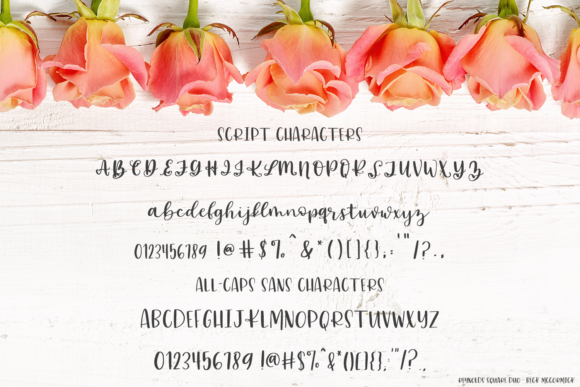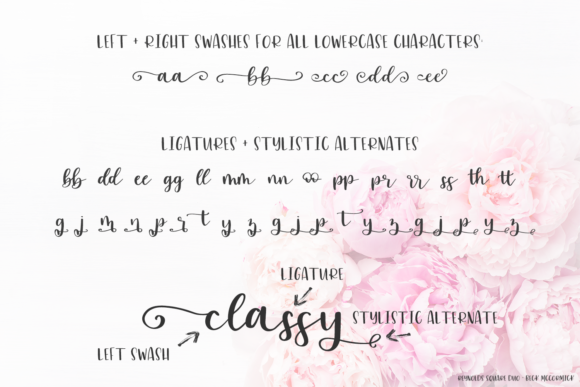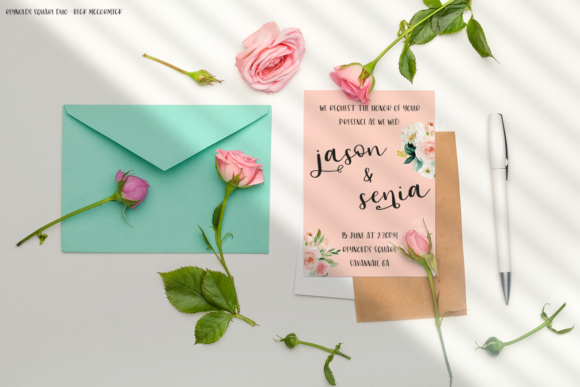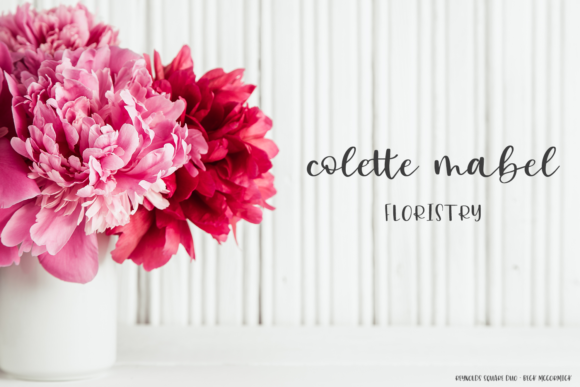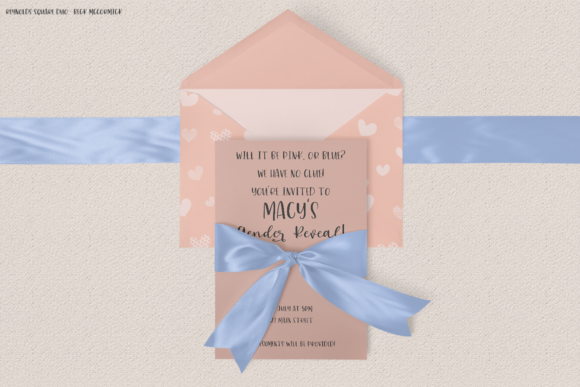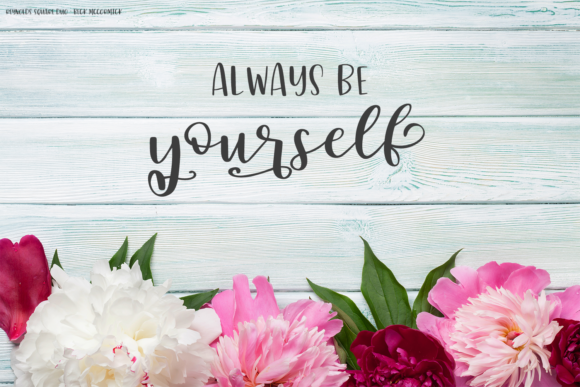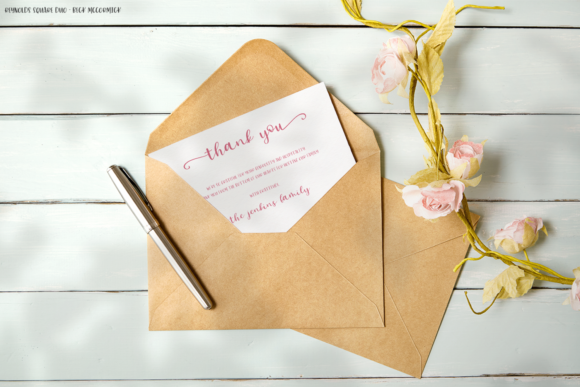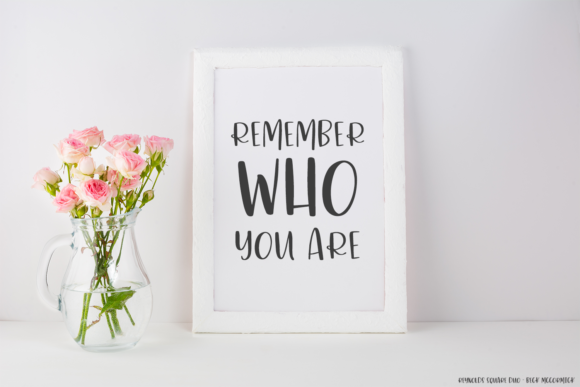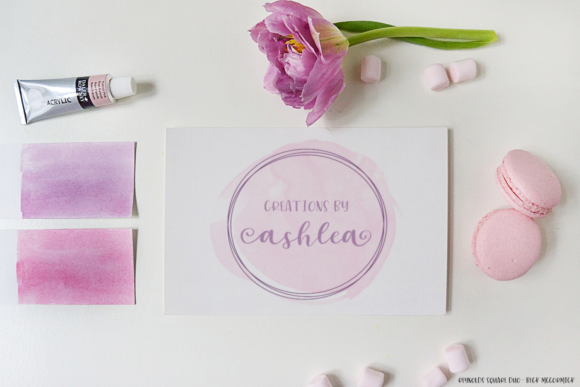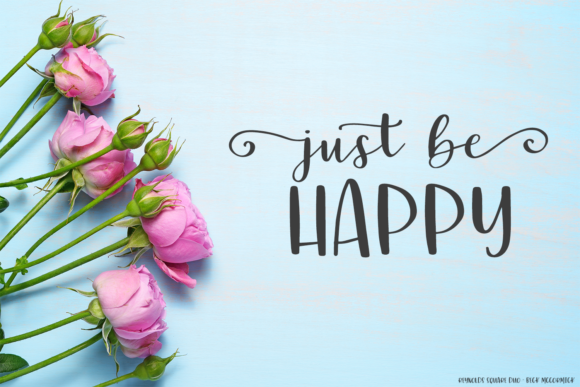
Reynolds Square Font
About Reynolds Square Font
Inspired by classic calligraphy, Reynolds Square is a unique and authentic handwritten font with a bold twist. It will effortlessly turn any design project into a true stand out.